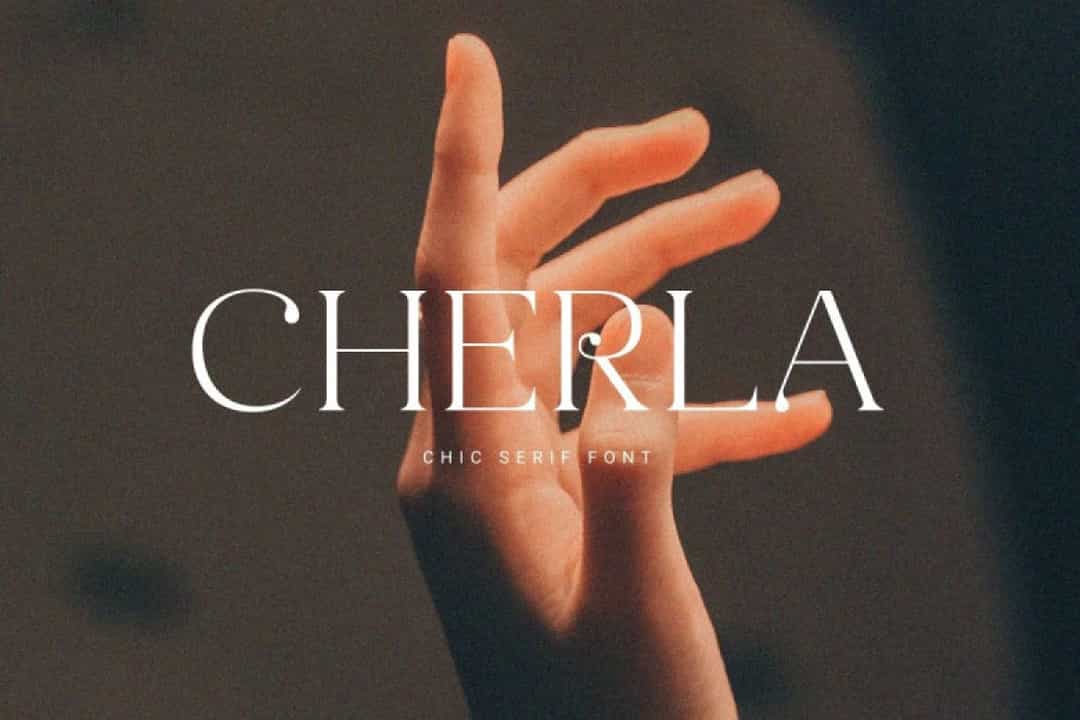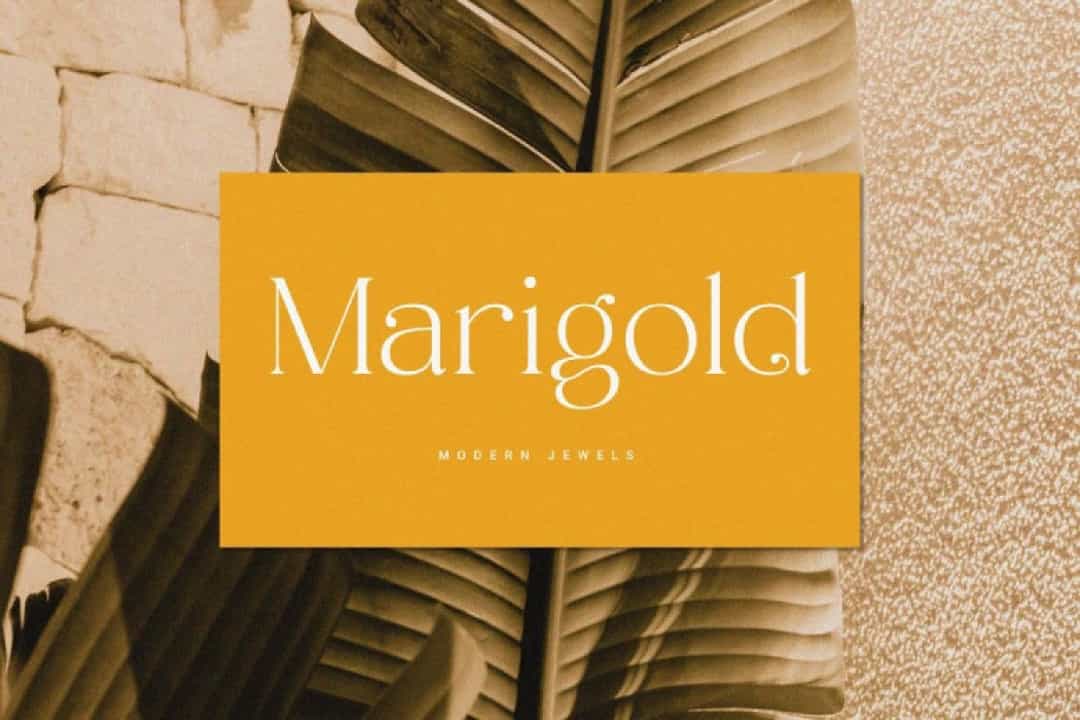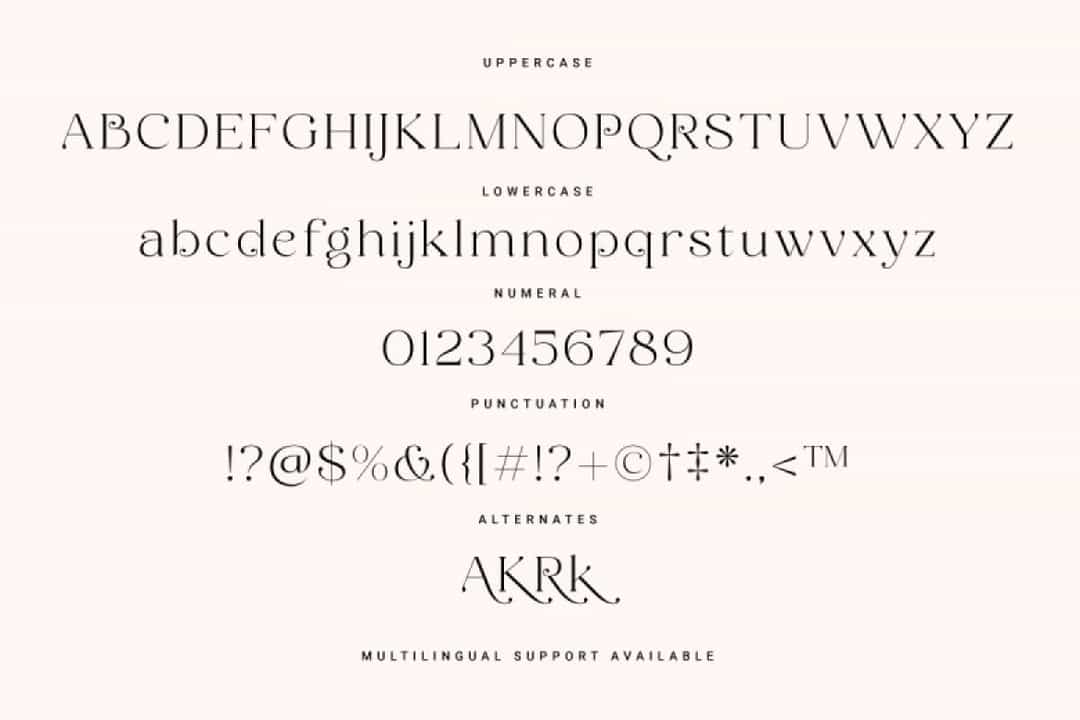
Cherla is a modern serif font with an attractive and striking appearance, and features various characters to add an air of elegance. Perfect for branding and logo design. PUA encoded so you have easy access to all characters and strokes!